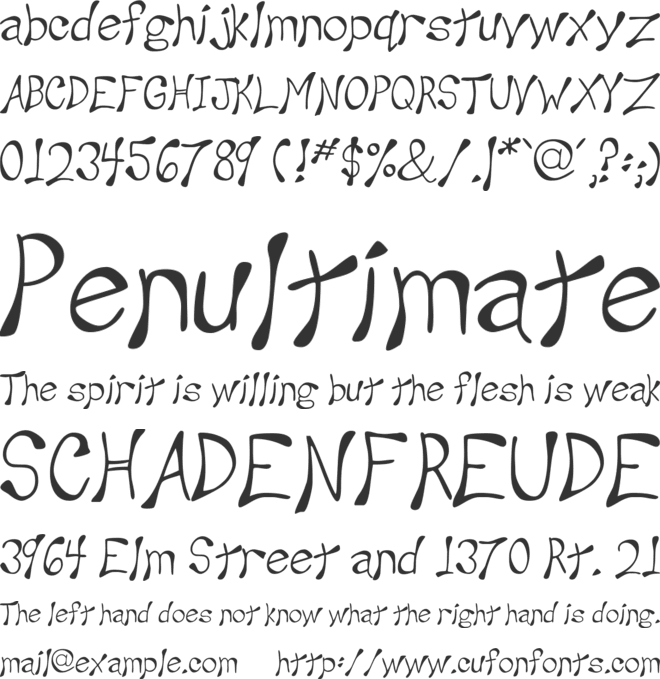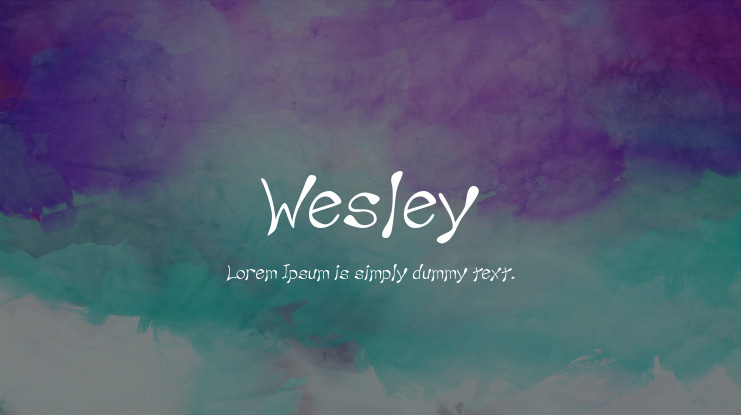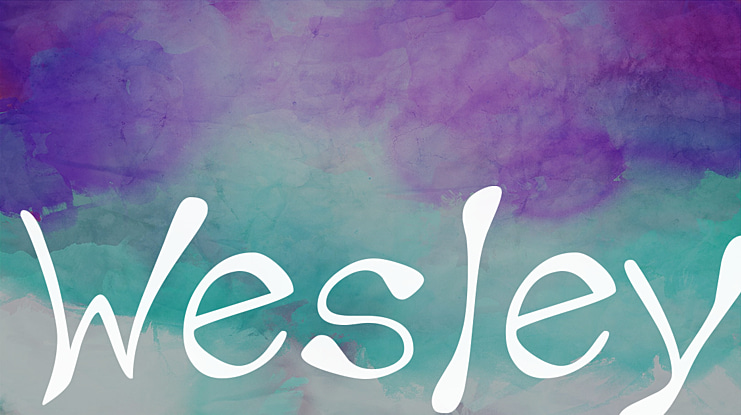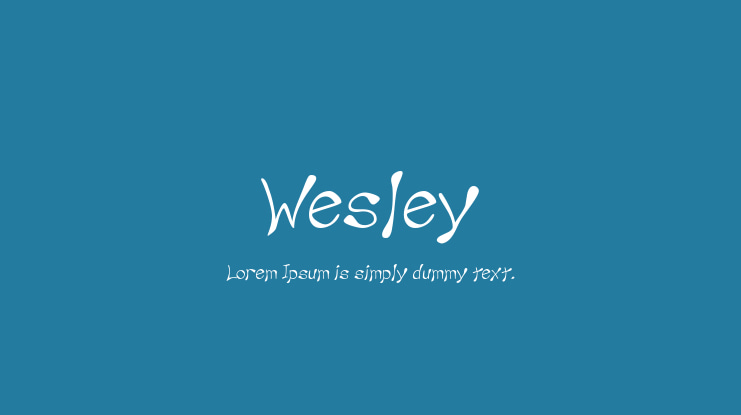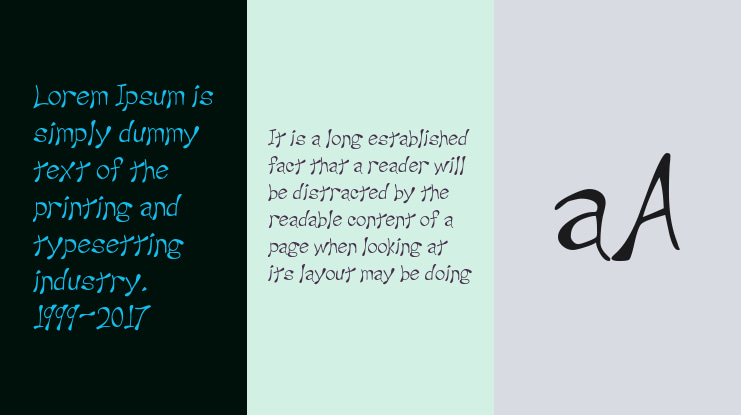
Wesley Font
I was experimenting in class one day, because I needed to make a new font. As I drew letters, I decided to put emphasis on the upper right and lower left portions. I liked it. So I drew it all out. It was a challenge on those letters that don't really have upper right or lower left portions. But I made it work.As for the name, I named this after John Wesley. He was the founder of the Methodist church back in the 1700's. I am Methodist, and will be a Methodist pastor after I go to seminary. Wesley is also the common name for the LA Tech Wesley Foundation, a college ministry that I attended, love, and worked for in the '98-'99 school year.